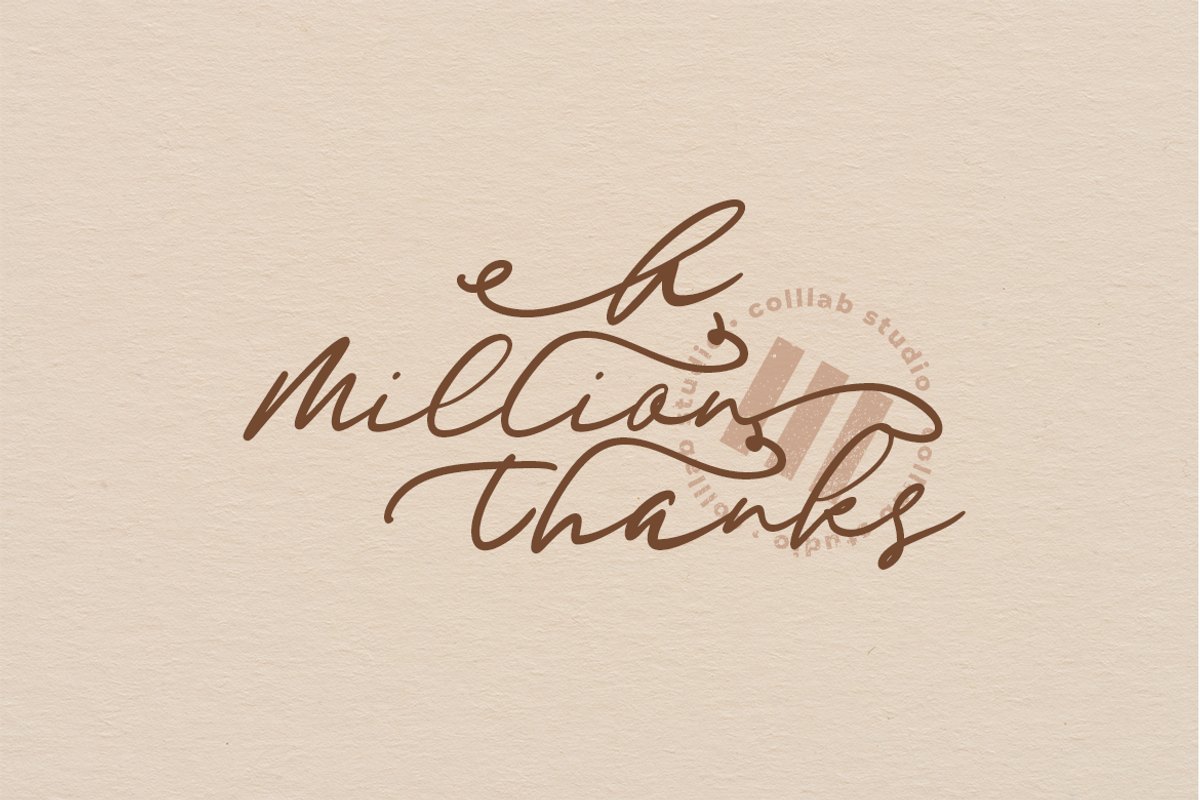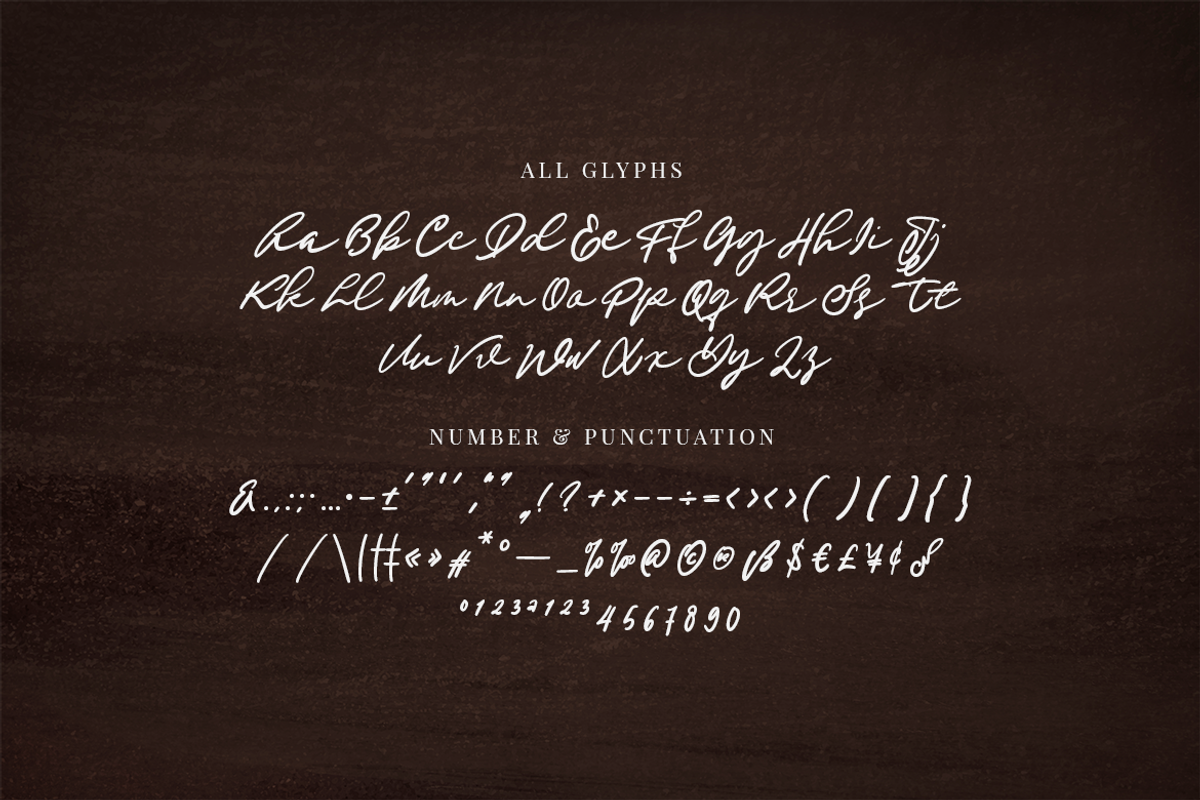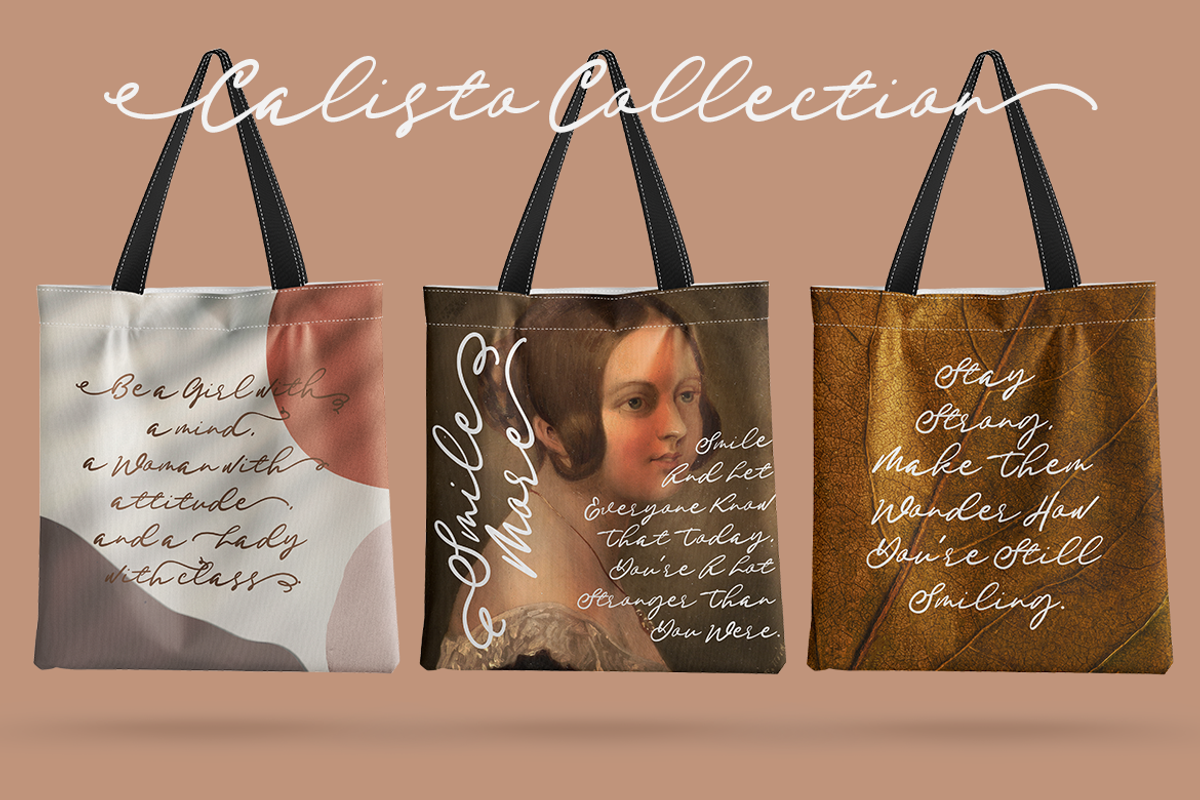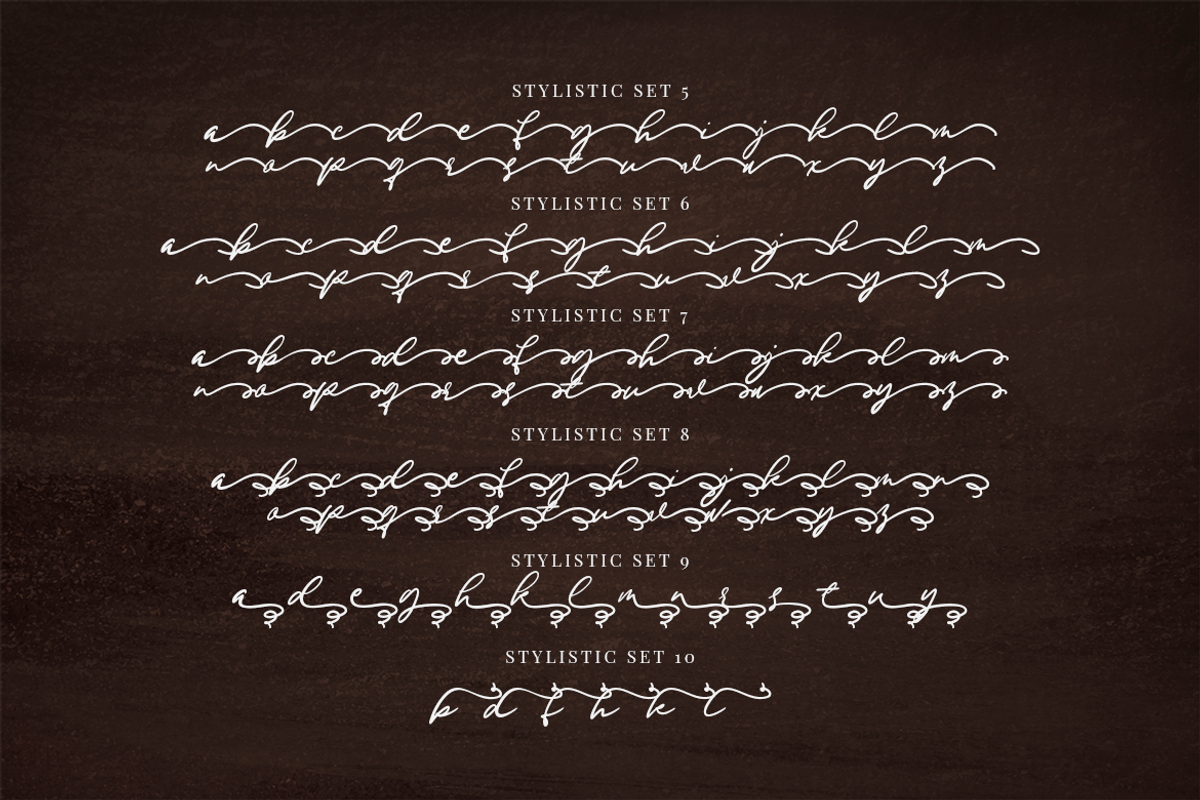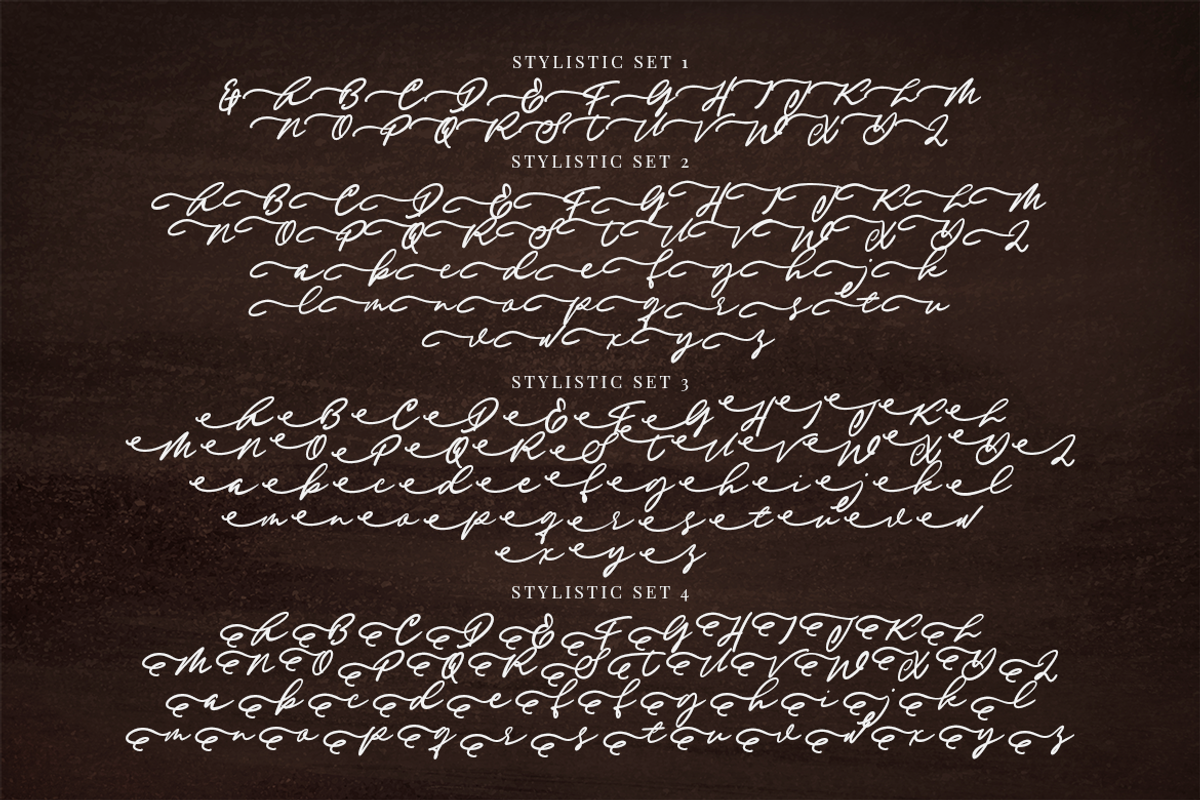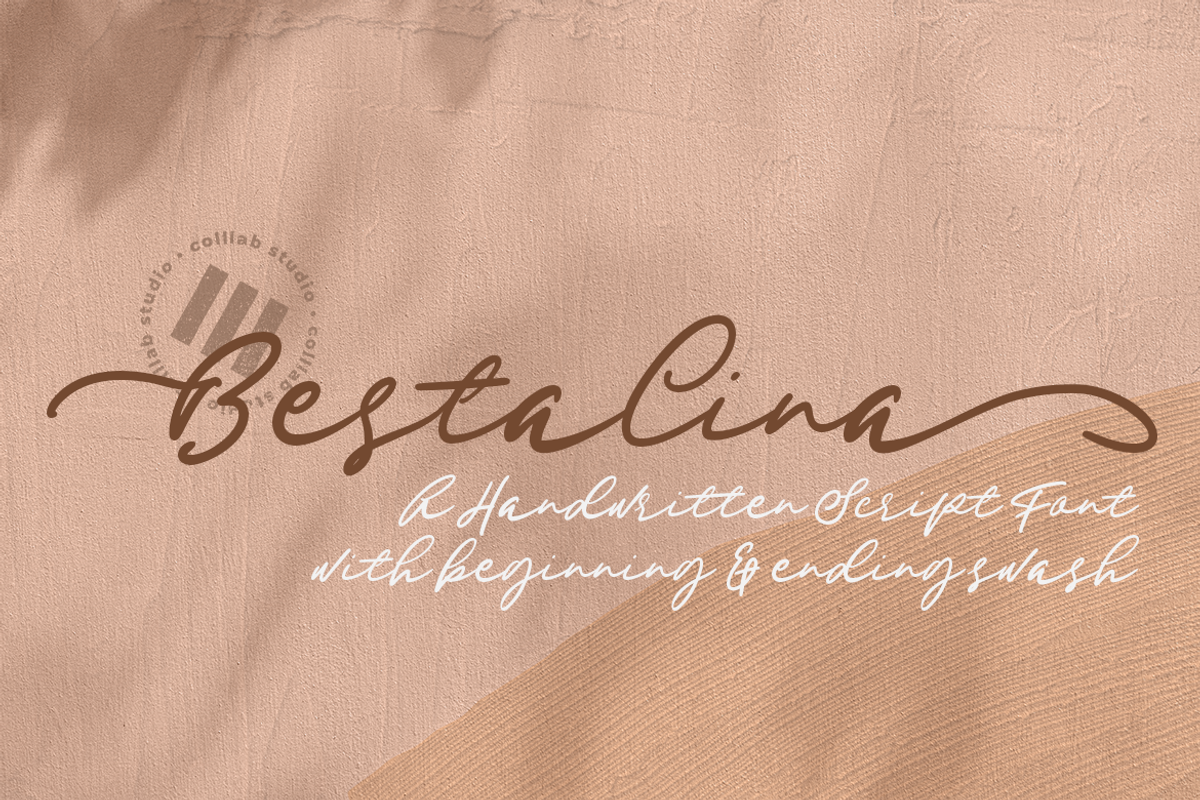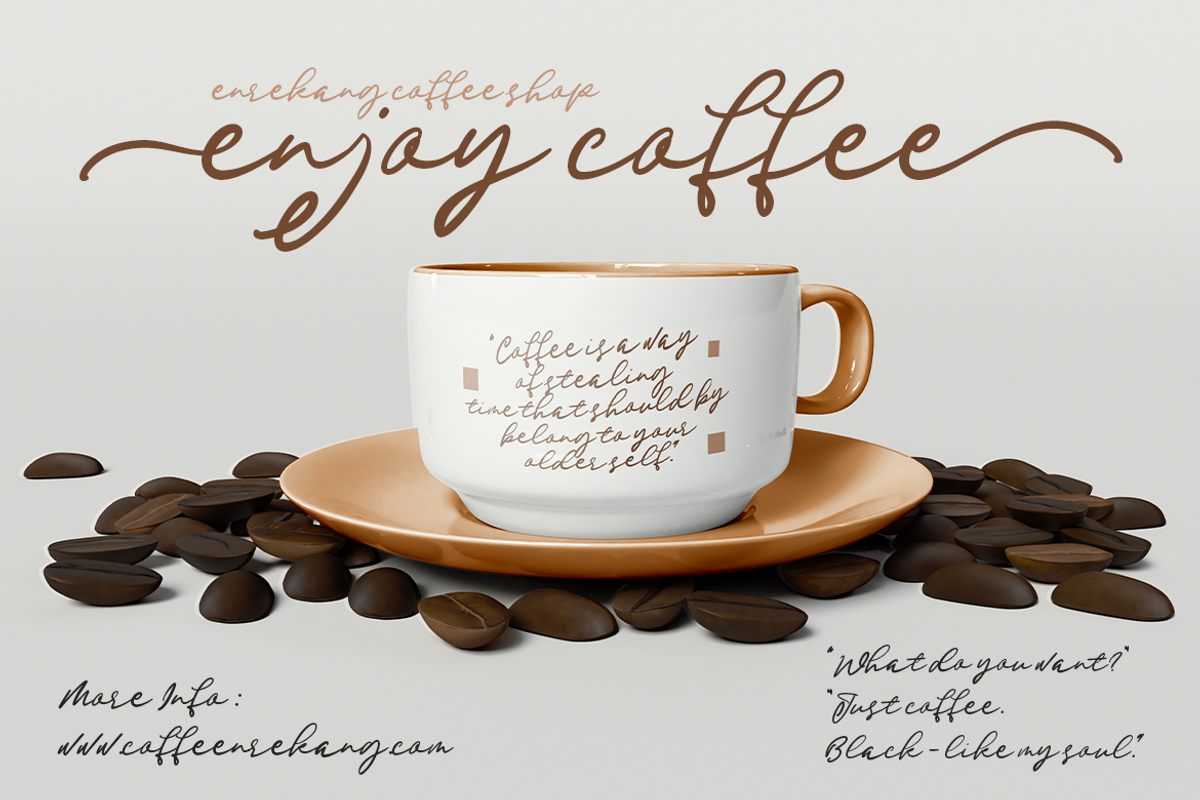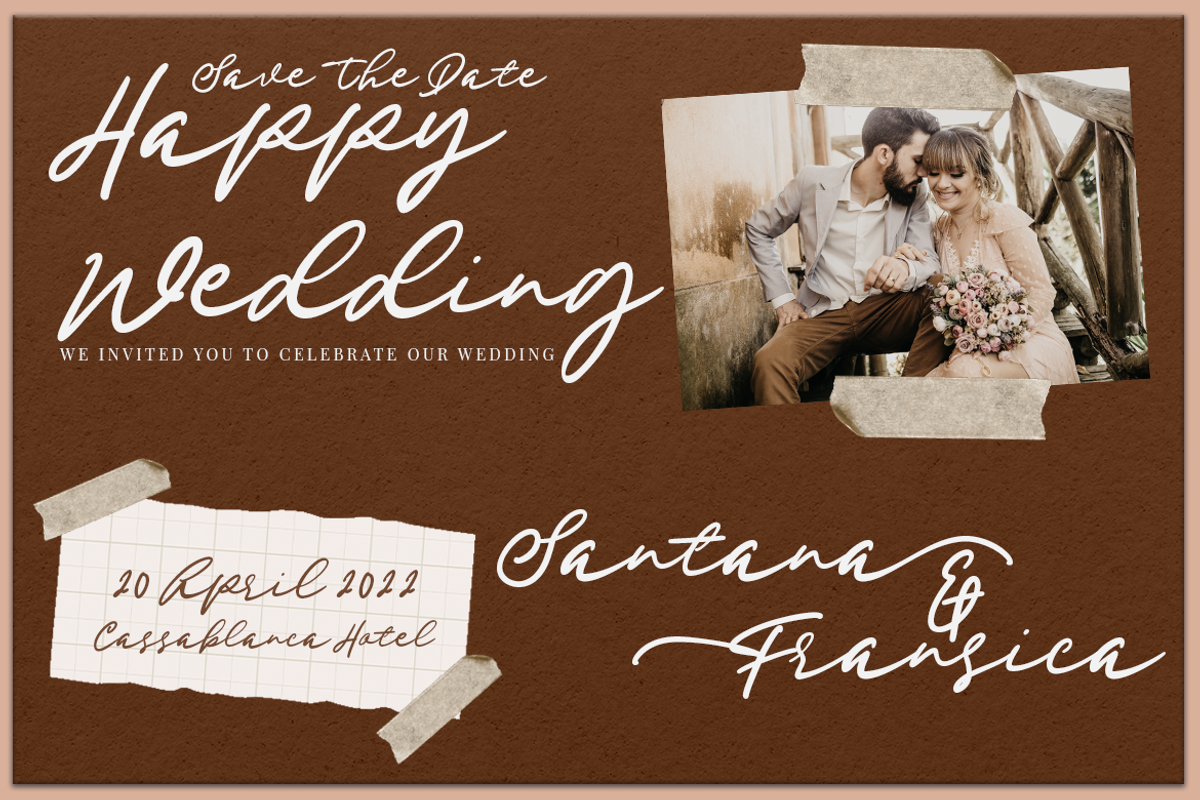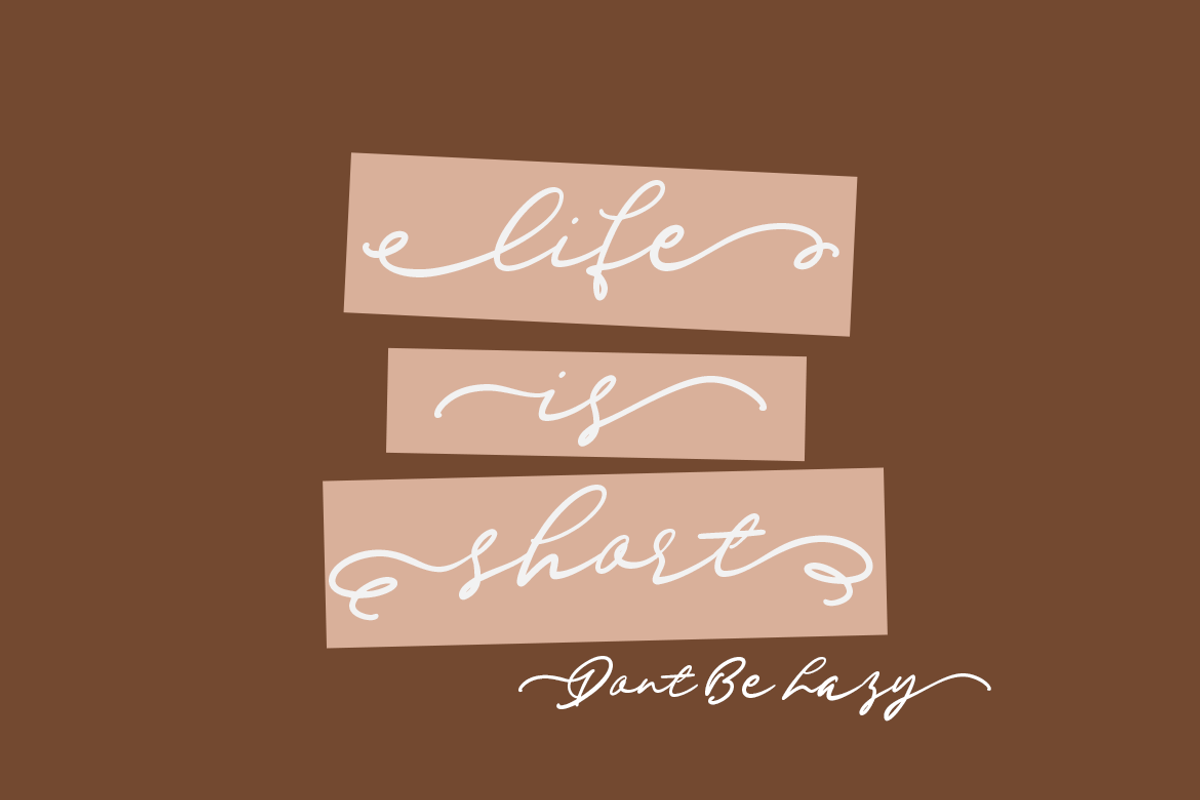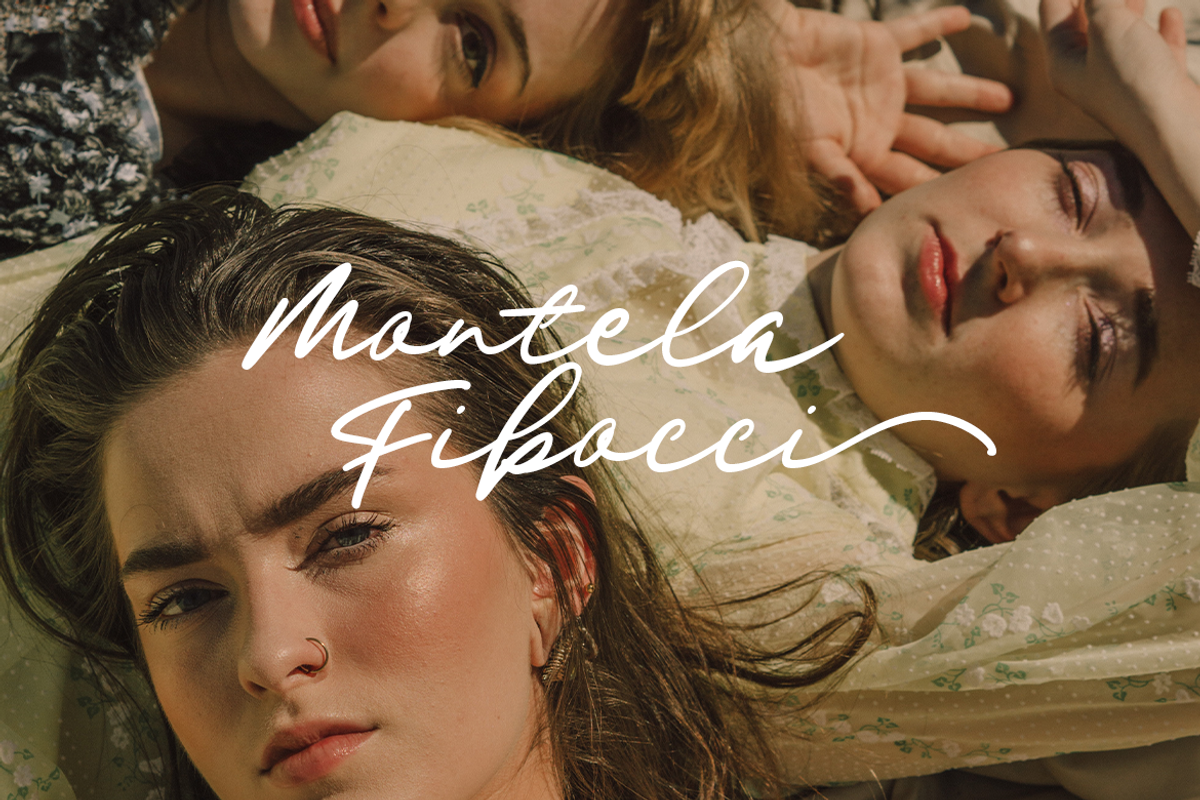
Bestalina | A Handwritten Font
Bestalina is a handwritten script font with beginning and ending swashes. Thanks to its friendly curves and beautiful letterforms, it works very well in all kinds of design projects.
Bestalina is the perfect way to add a touch of class to any project. The beginning and ending swashes give it an elegant feel, while the script lettering gives it a modern look. You can use Bestalina to add a classy feel to any project, such as t-shirt design or wedding invitations.
What sets Bestalina apart from other script fonts is the beginning and ending swashes. These give the design a unique look that sets it apart from other fonts.
Bestalina font includes over 500 glyphs that you can use with your designs. Additionally, this font includes alternate letters for each letter of the alphabet so you can create unique-looking words and phrases with ease!
- 561 Glyphs,
- Ligatures & Swashes
- 10 Sets of Stylistic Alternates
- Multilanguage Support ( 65 Languages )